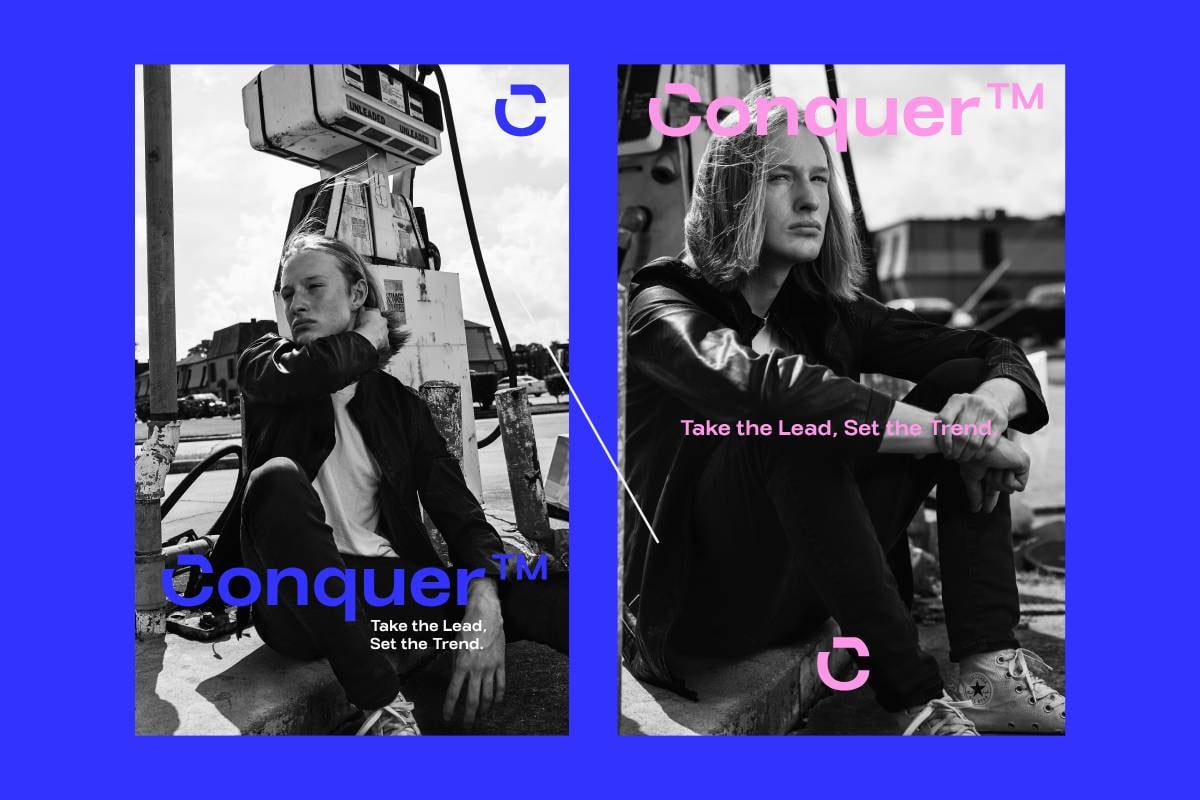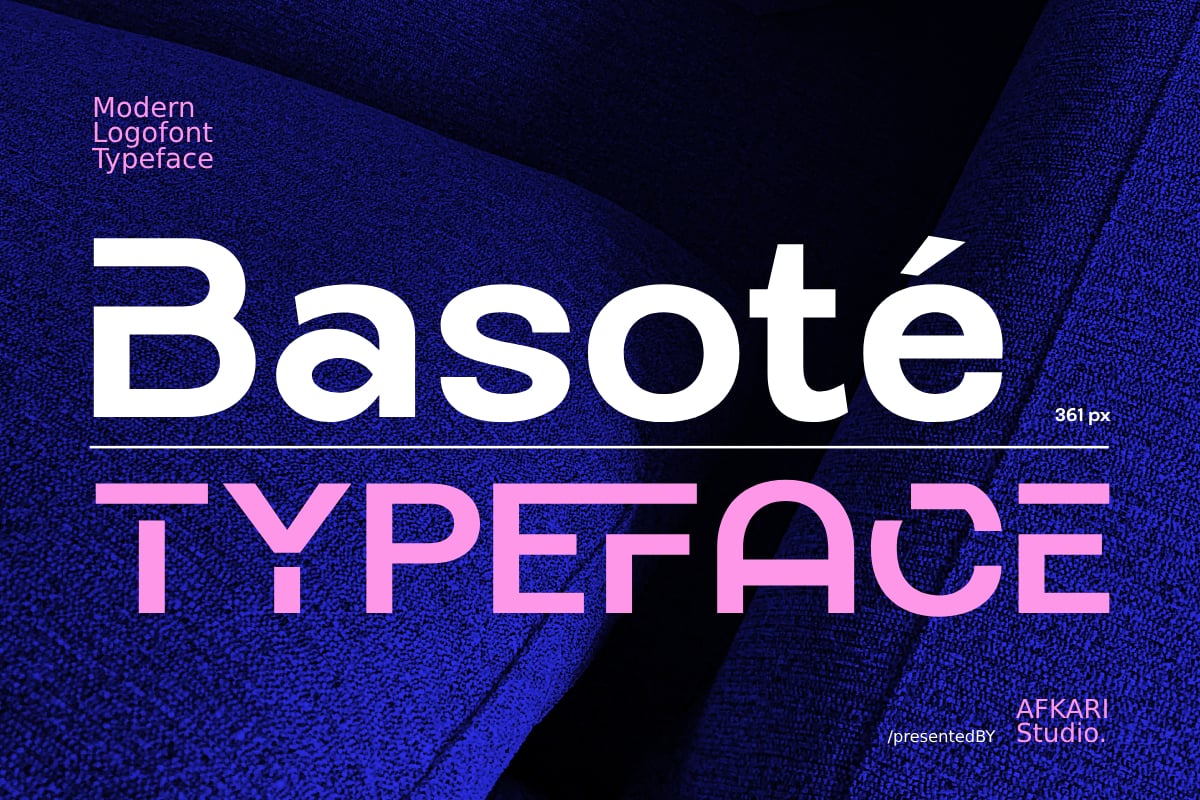
Basote – Modern Logo Font Typeface Font
Basote – Modern Logo Font Typeface Font is a versatile typeface ideal for various projects, including logos, branding, posters, blog headers, advertisements. The free version includes a full set of uppercase and lowercase letters, available in OTF format.